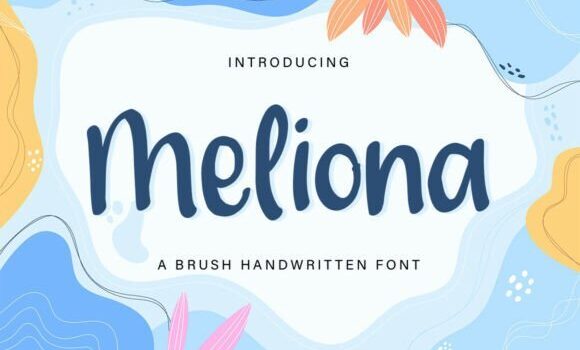
meliona
Meliona Font – Free Download Introduction to Meliona Font Meliona font is a rhythmic, brush-style script that brings a sense of movement and artistry to every design. 📸 Preview Gallery 4 images 📌 Product Name Meliona Font 👤 Author Pretty